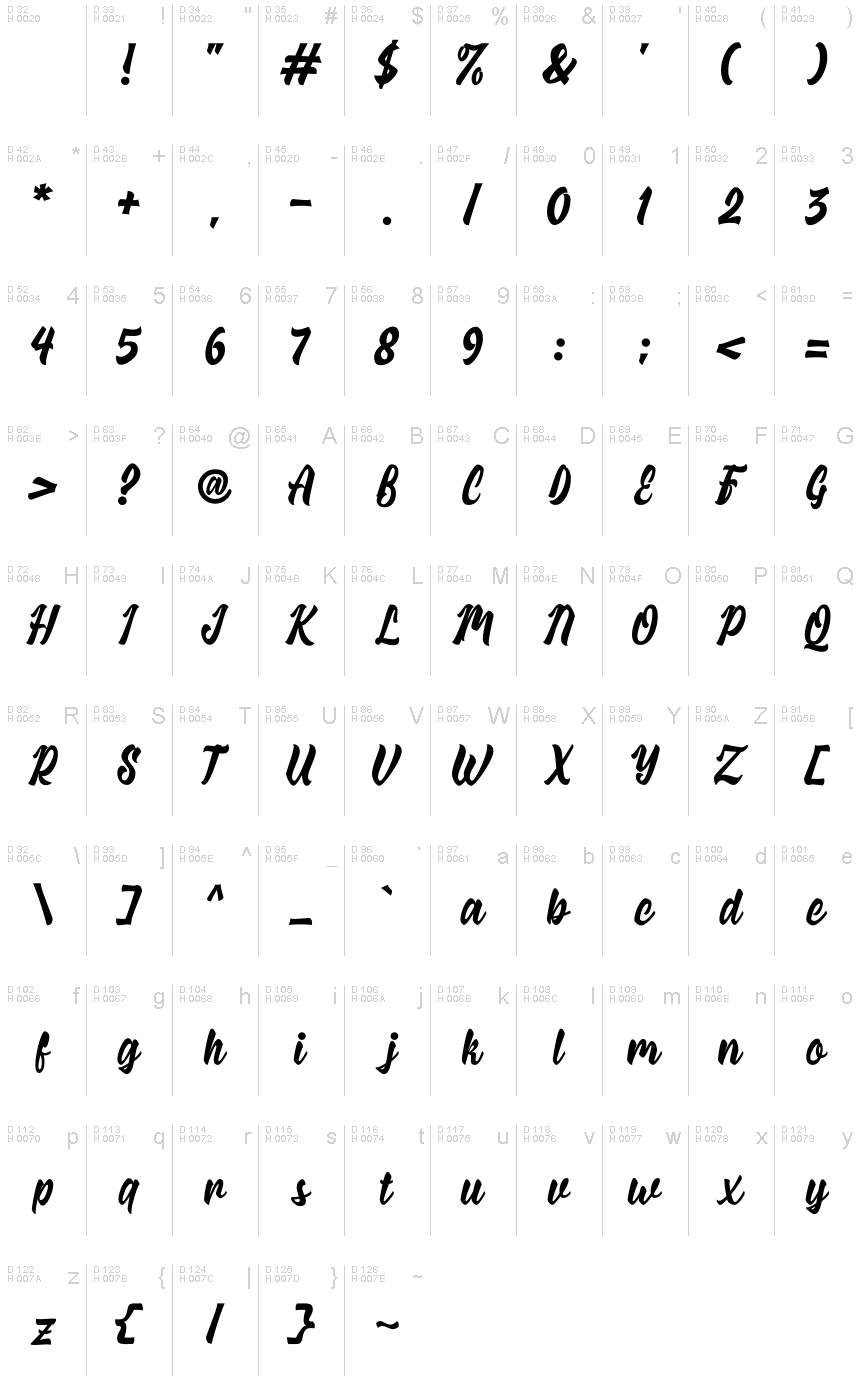
Quadrica
Quadrica font is a demo handwritten display font designed by Sesa Grafika. This elegant monolinear connecting script style has flowing letterforms with high contrast between thick and thin lines, as if written with a wet ink pen.
Quadrica is fitted for both formal and informal occasions such as romantic novel covers, bears sweet Christmas quotes and tender wedding invitations. Its dynamic presence will take your inspirational messages, classy shop signs and wandering social media videos to the next level. Great for elegant event birthday cards, wrist tattoo sketches and even stunning wine labels - this calligraphic design will add a memorable feeling anywhere it's used.